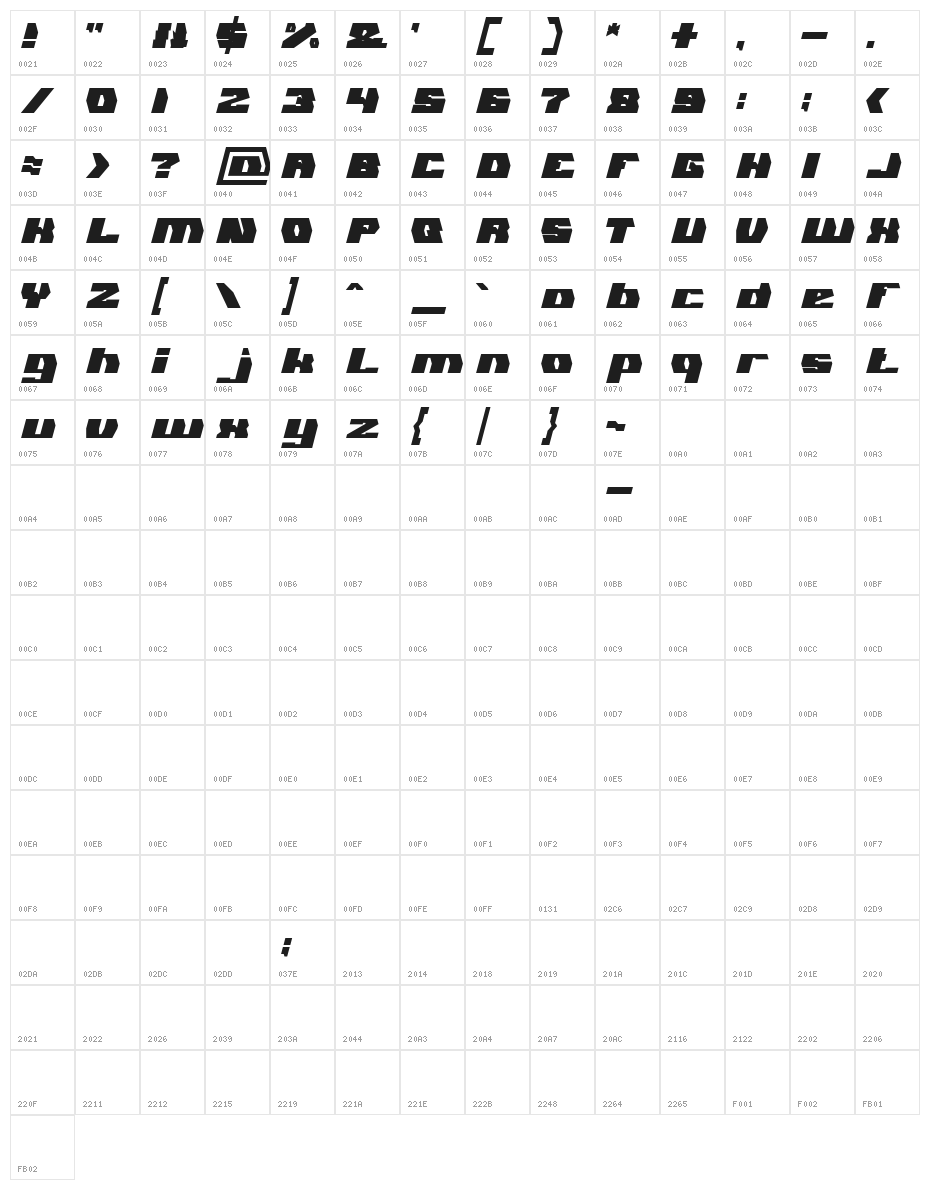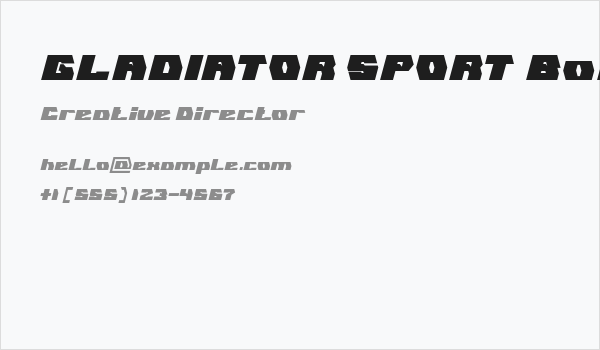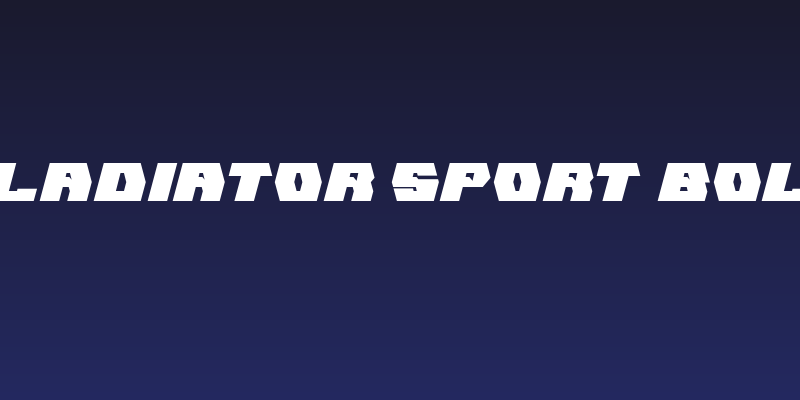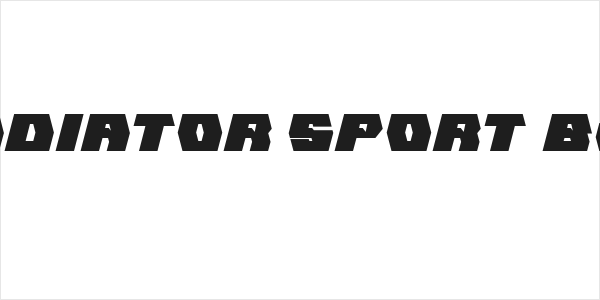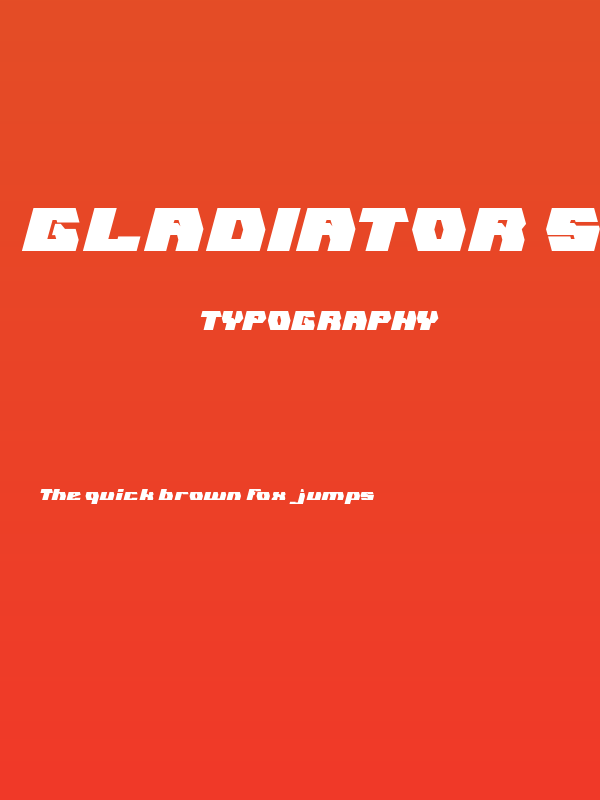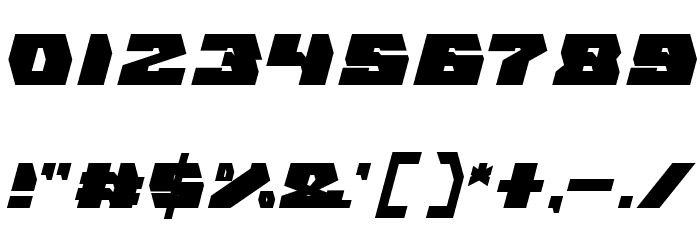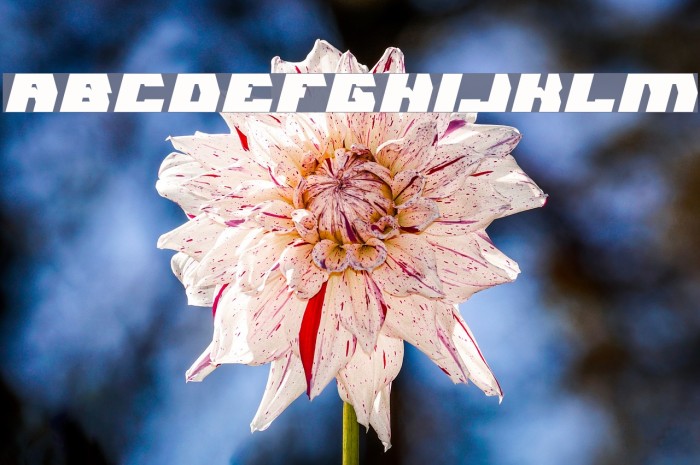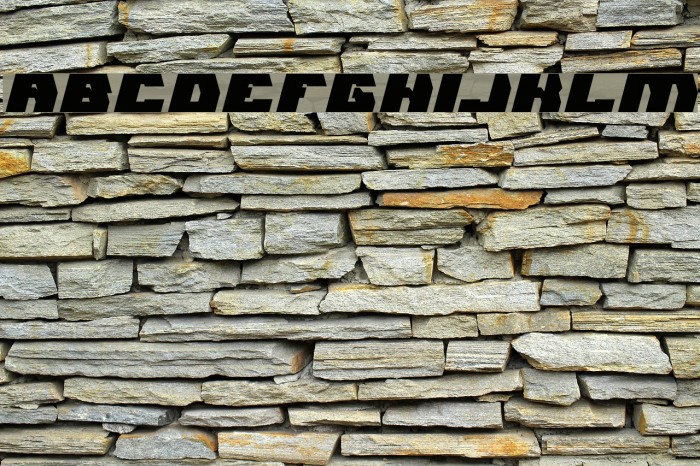
GLADIATOR SPORT Bold Font
GLADIATOR SPORT Bold Description
This bold, angular font exudes strength and modernity, characterized by its sharp edges and geometric forms. The uppercase letters are particularly striking, with a futuristic and sporty aesthetic that commands attention. Lowercase letters maintain the same boldness, ensuring consistency across text. The numerals are equally robust, making them ideal for impactful displays. Special characters are designed to match the overall bold and dynamic style, ensuring a cohesive look. This font's unique design makes it perfect for projects that require a strong visual impact.
| Proposed Projects | Ideal for sports branding, futuristic designs, posters, and headlines. |